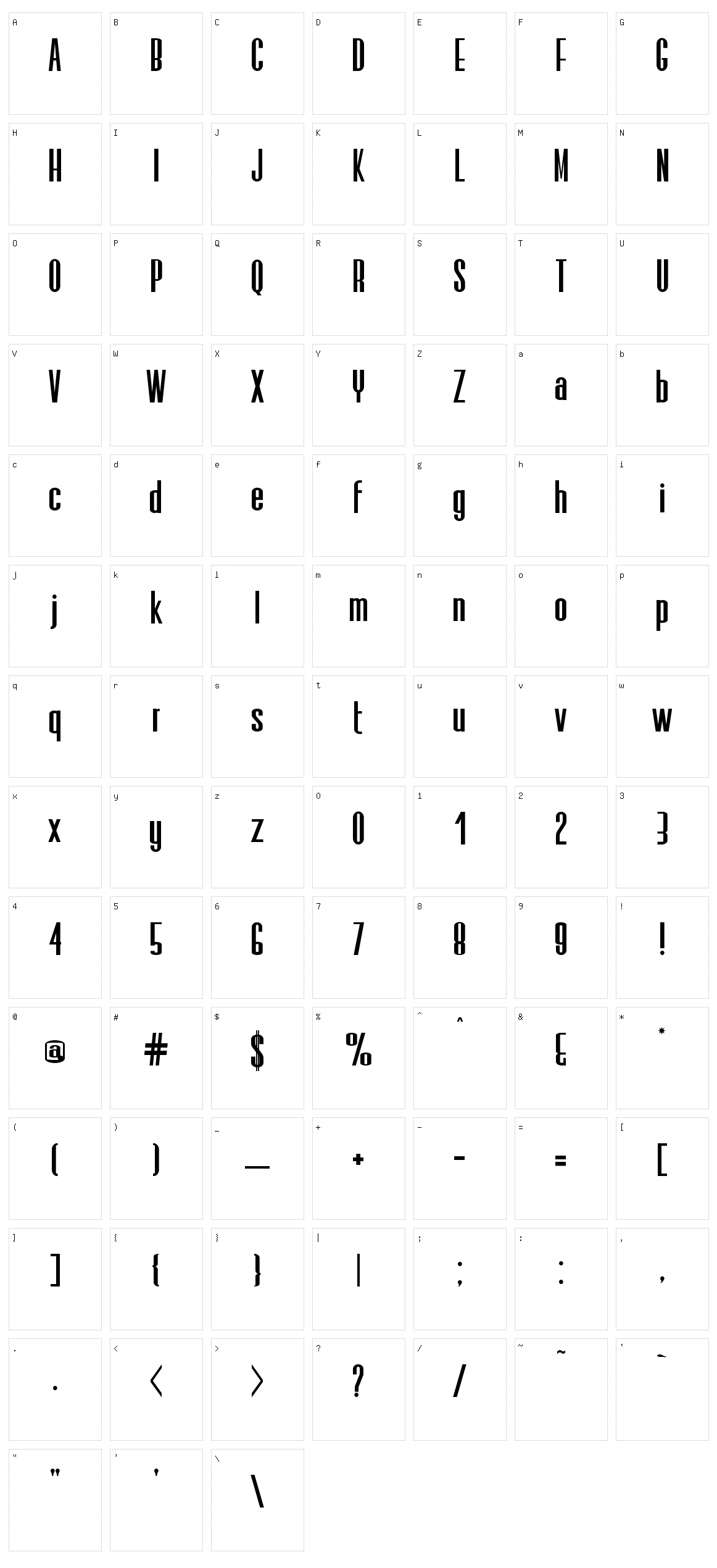
Made to remember a dream in which I saw the singer Elis Regina on the rooftop of a building. In the dream, she'd disappear from view and I'd fall from the top of the building. More